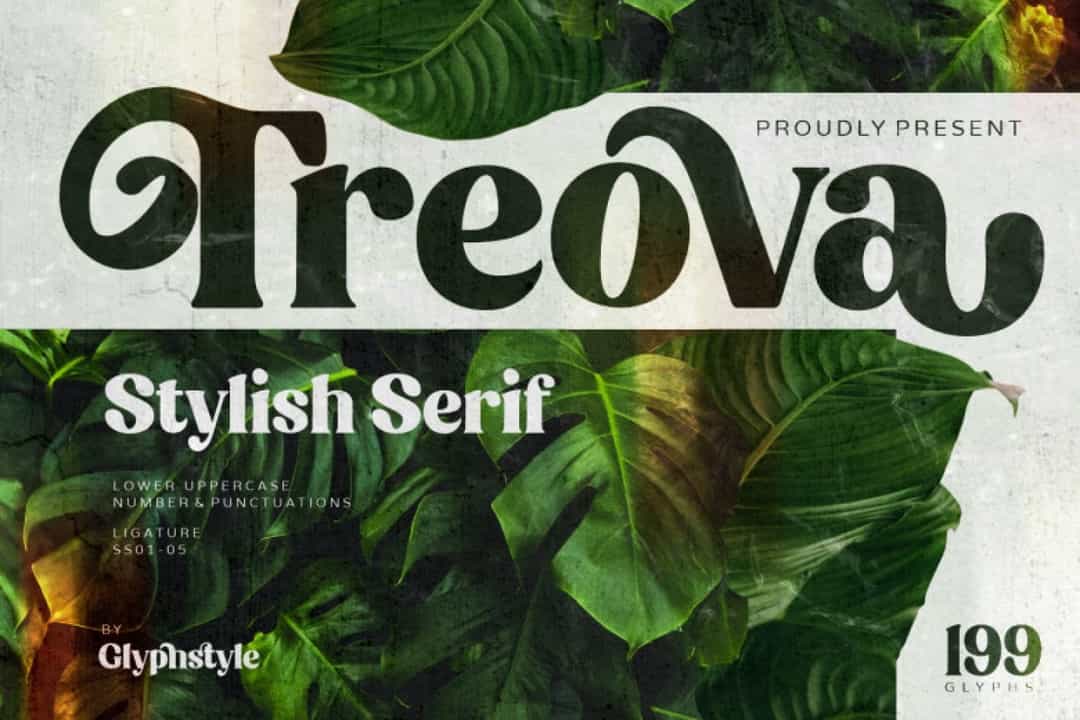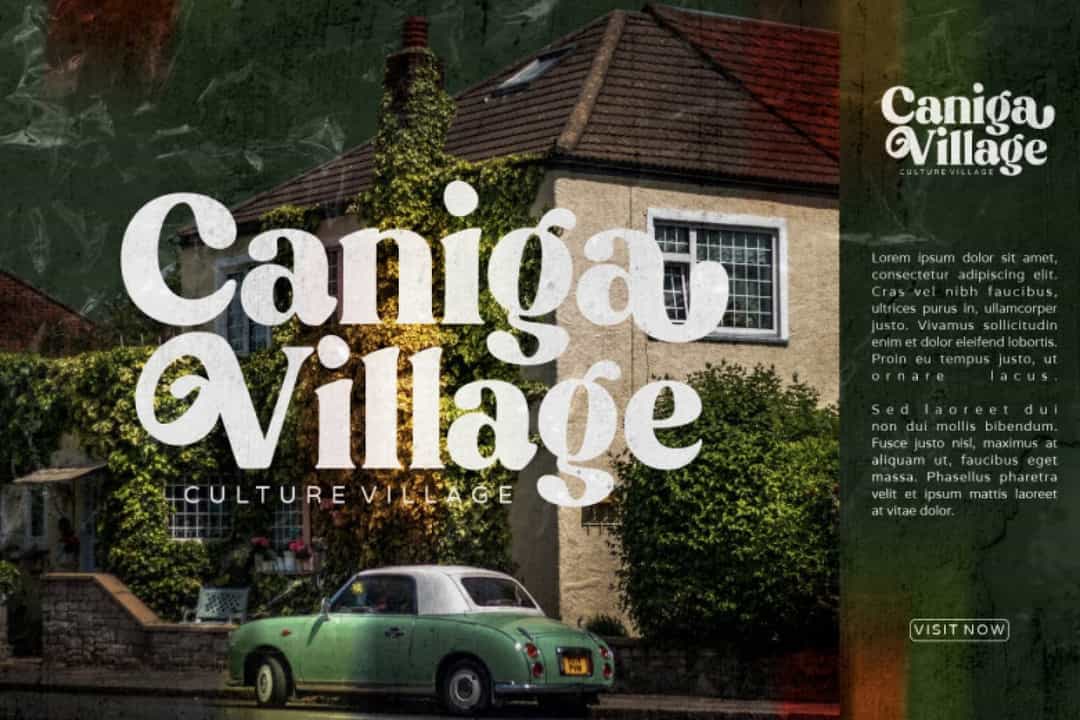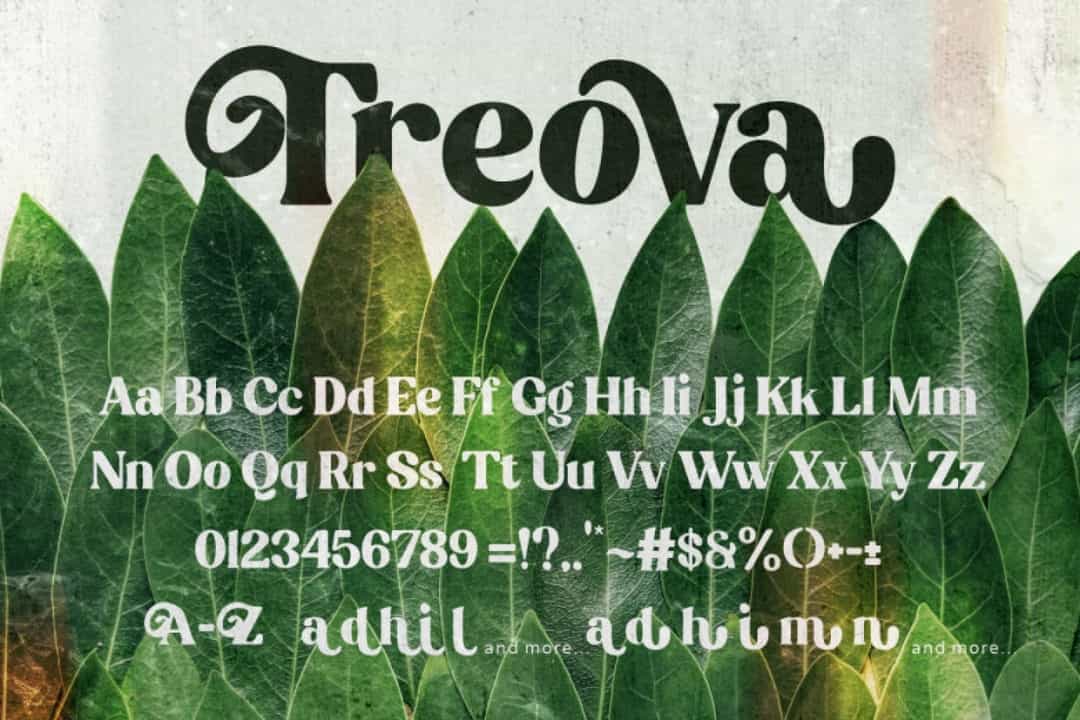
Treova is an attractive display serif font. Elegant and stylish, its fluid serif-like form can create fluid movement when using the appropriate combination of curves. There is also a selection of characters available within Ss01-05 that make this font suitable for logos, branding projects wedding designs as well as advertisements social media posts packaging for products designs labels photographs watermarks stationery invitations etc that require serif in an attractive font face. Treova font can be found here.